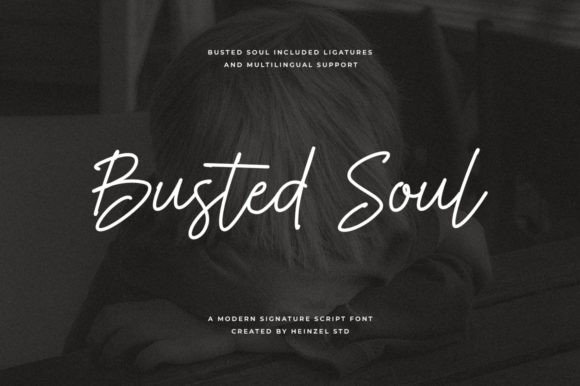
The Elusive Perfect Font: My Encounter with Busted Soul
I’ll never forget the time I was working on a wedding invitation project, and my client asked for a font that was “elegant, yet playful.” I scoured the internet, tried out dozens of fonts, but nothing seemed quite right. That was until I stumbled upon Busted Soul, a beautiful handwritten font that stole my heart. In this article, I’ll share my experience with Busted Soul, its features, and how to make the most of it in your designs.
An Honest Review of Busted Soul
• ✨ Elegant and flowing script with a personal touch
• ✅ Perfect for wedding invitations, thank you cards, and quotes
• 💕 Beautifully crafted to add a touch of sophistication to any design
• 🎨 Highly versatile and works well with various design styles
While Busted Soul is an amazing font, there are a few things to keep in mind:
• 🤔 May not be suitable for very small font sizes, as some details may get lost
• ⚠️ Limited availability of stylistic alternates, which may limit creative options
A Practical Guide to Using Busted Soul
The Story Behind Busted Soul
Busted Soul was designed with the intention of creating a beautiful, elegant script font that captures the essence of handwritten writing. The designer aimed to create a font that would be perfect for special occasions, such as weddings and anniversaries, while also being versatile enough for everyday use.
Q: What is Busted Soul’s personality?
A: Busted Soul is an elegant and flowing script font with a personal touch, perfect for adding a touch of sophistication to any design.
Q: Is Busted Soul suitable for body text?
A: While Busted Soul is beautiful, it’s best suited for display text or headings, as it may be difficult to read at smaller font sizes.